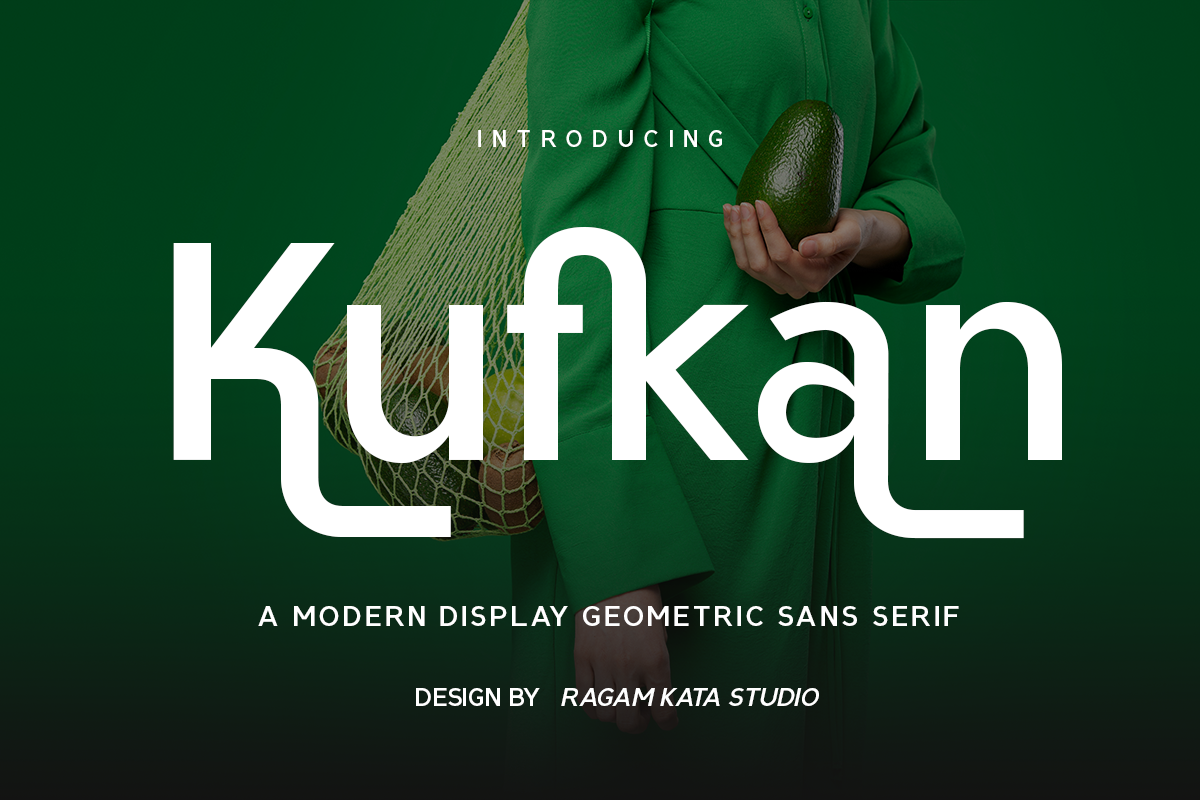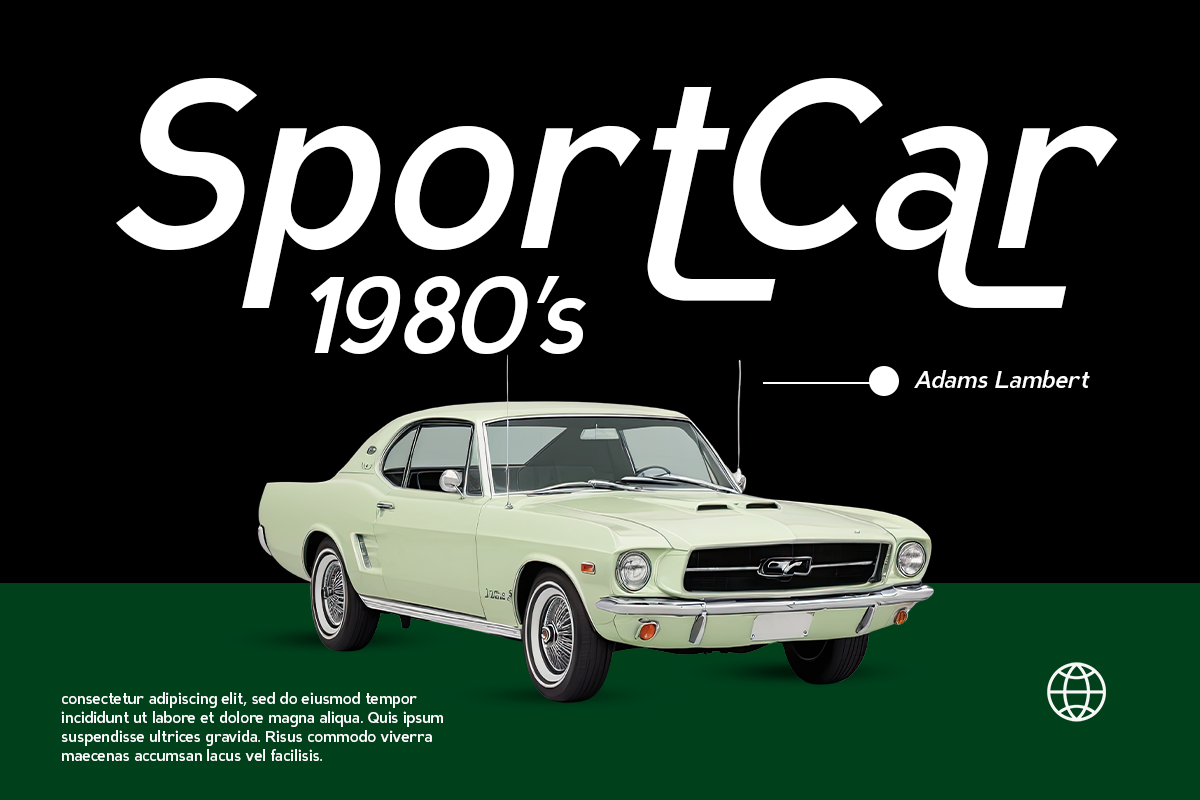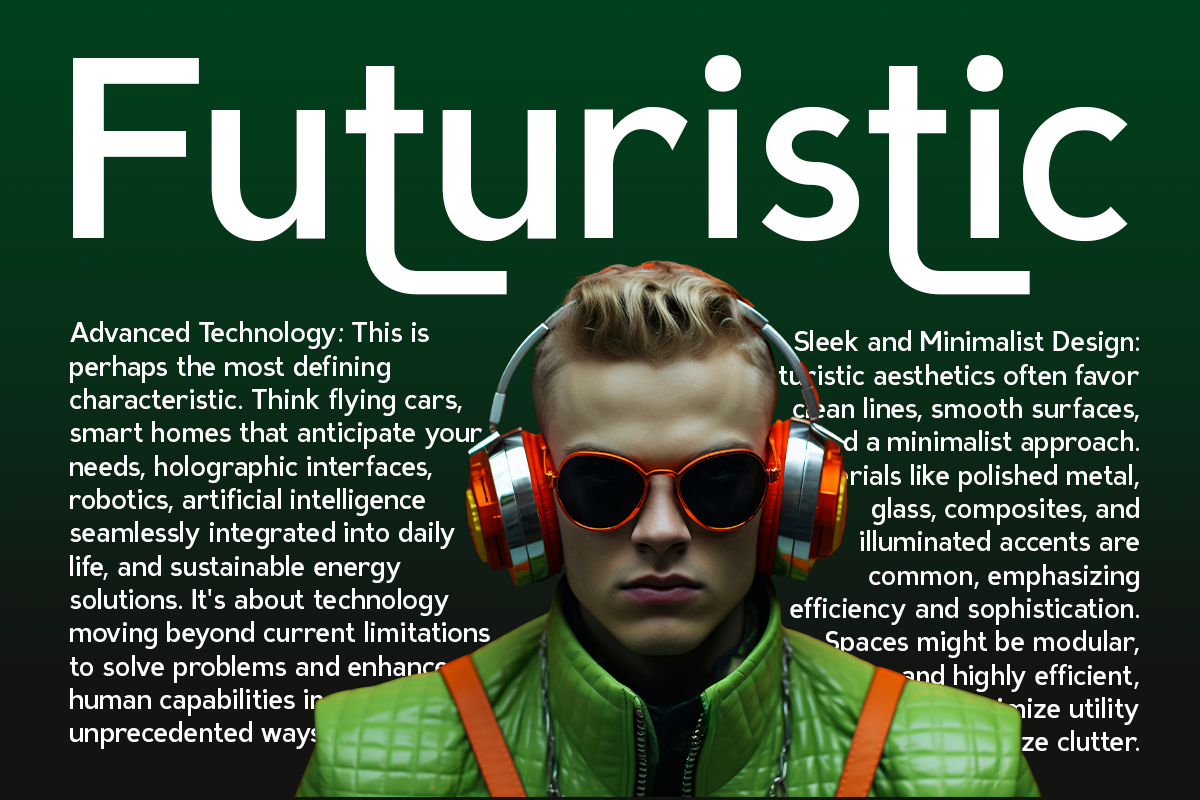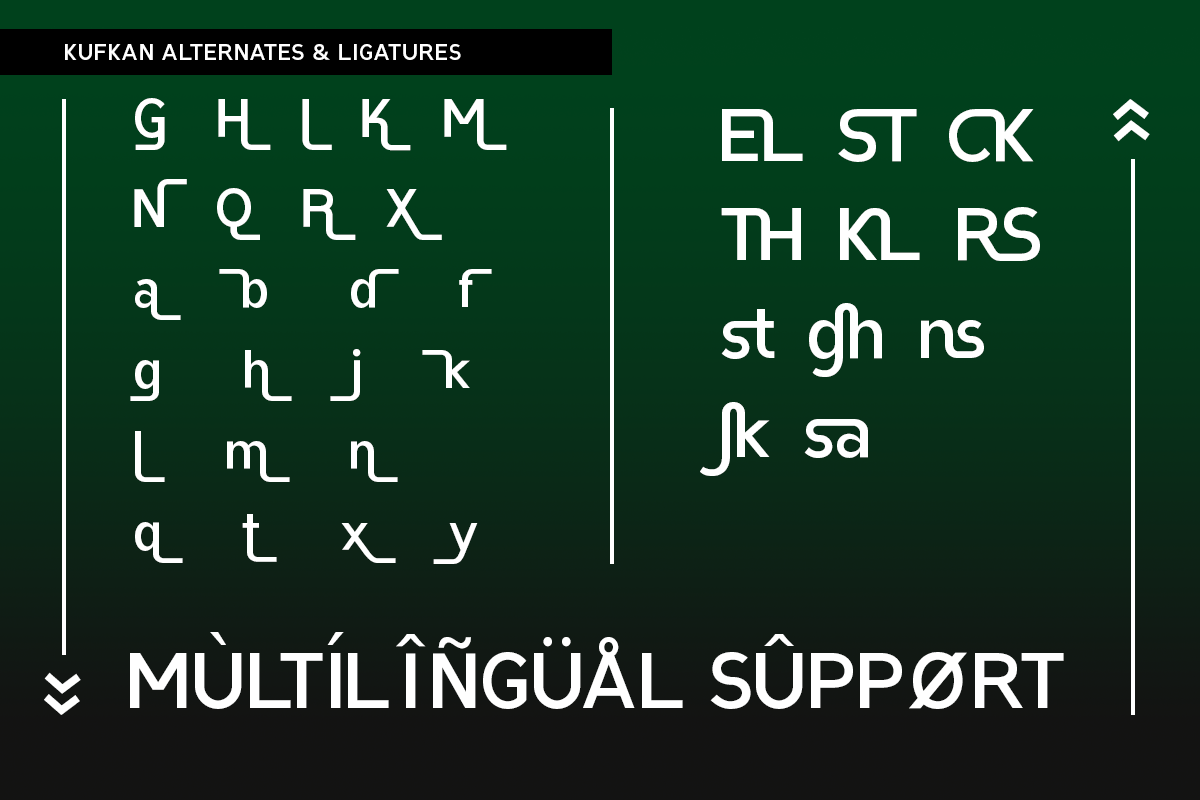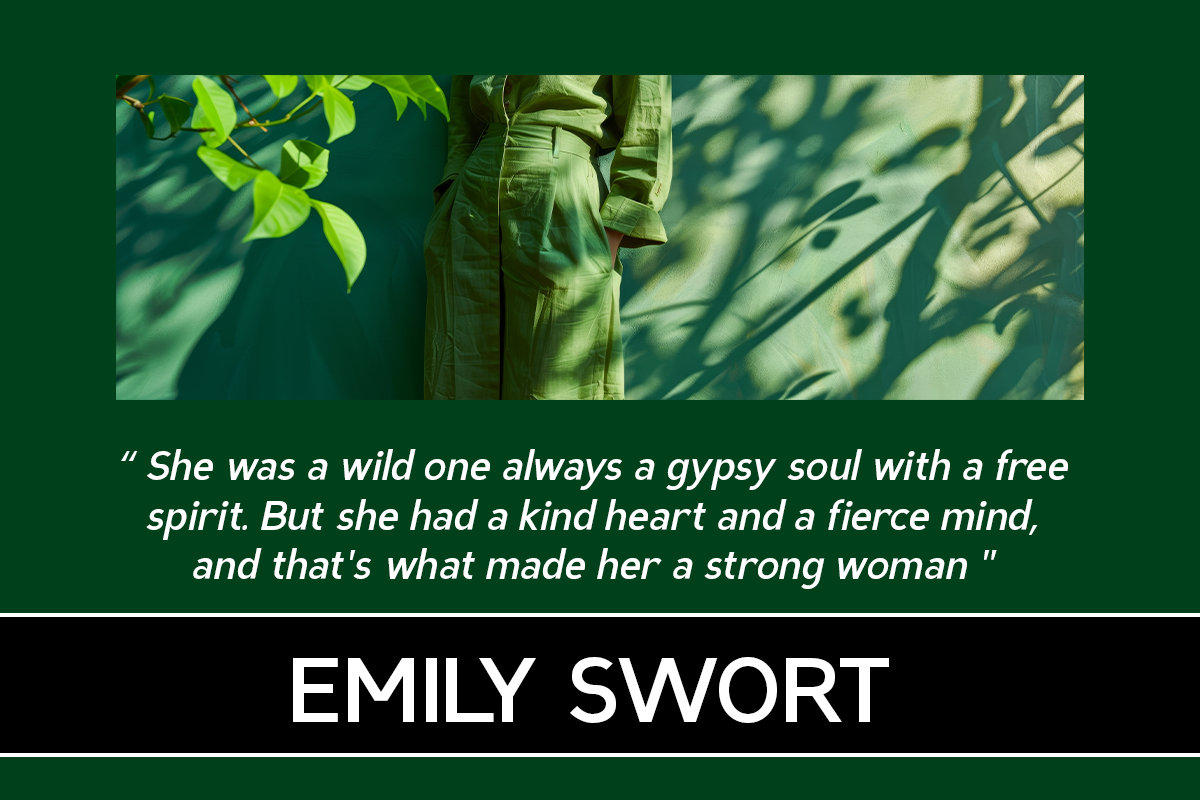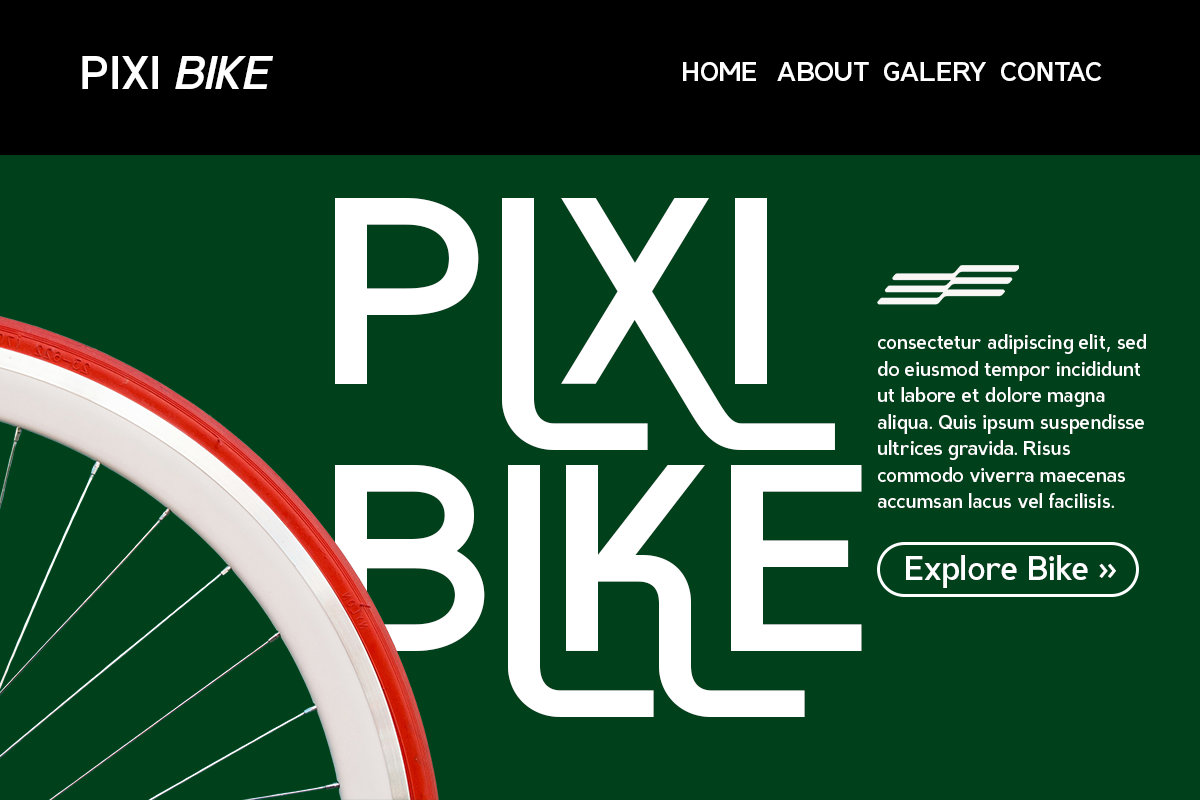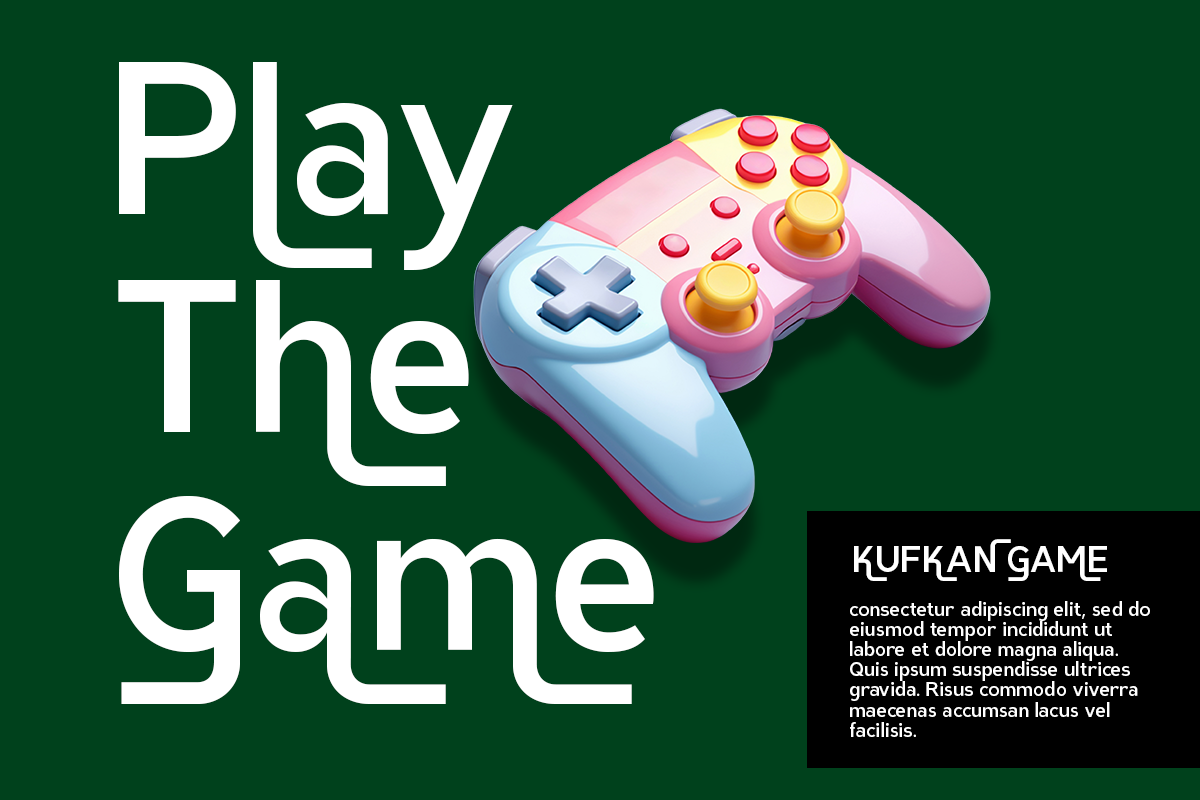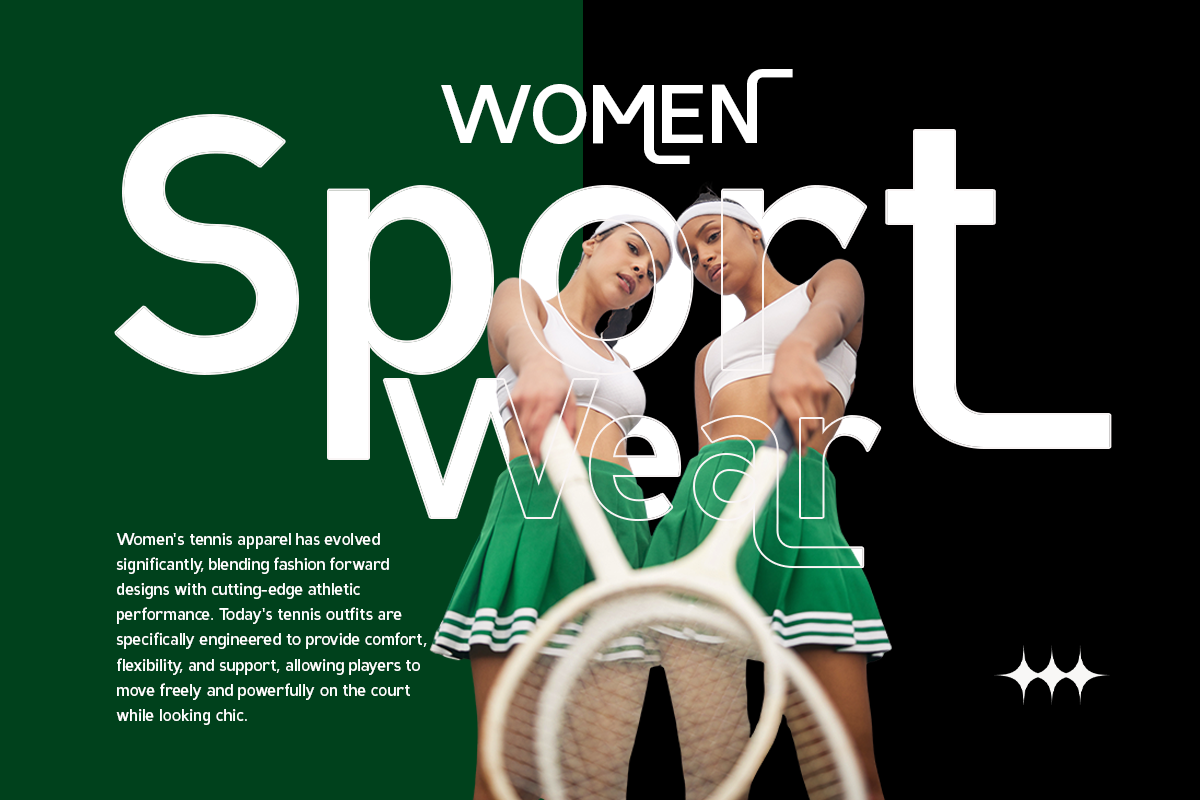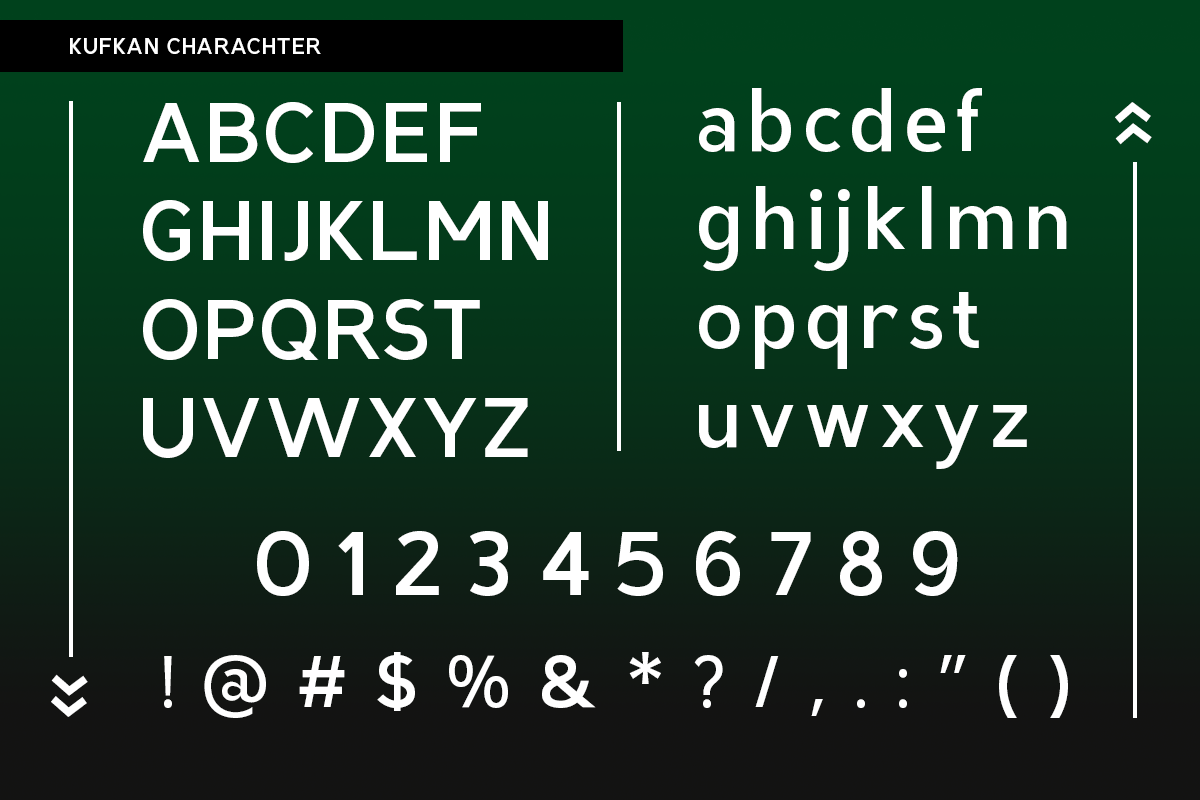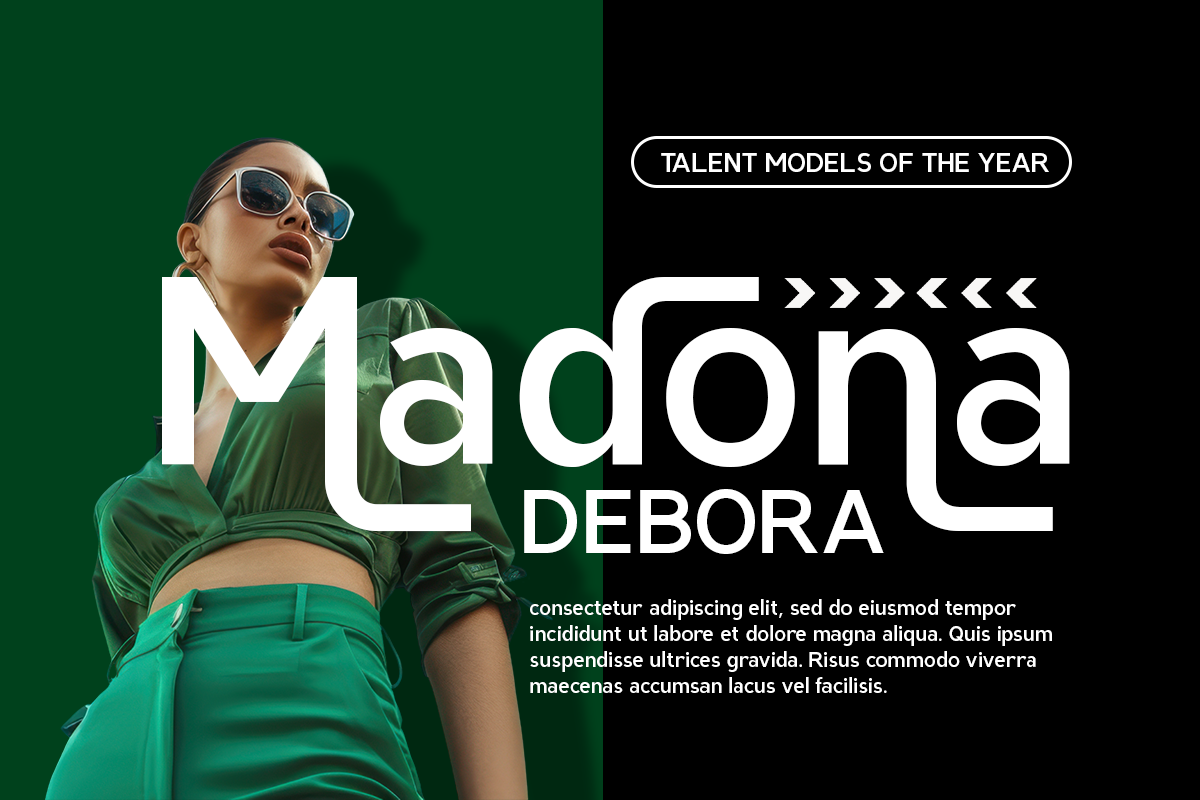
Kufkan - Modern Geometric Font
Kufkan is a modern geometric sans serif typeface crafted for standout branding and visual storytelling. With sleek lines and balanced letterforms, Kufkan brings minimal elegance to every design. Whether you're creating packaging, editorial layouts, digital interfaces, or logo designs, Kufkan makes a striking impression with clarity and style. Kufkan is ideal for eco-conscious brands, fashion-forward products, tech companies, and creative agencies looking for a fresh, confident voice.
- Alternates Character
- Ligatures Character